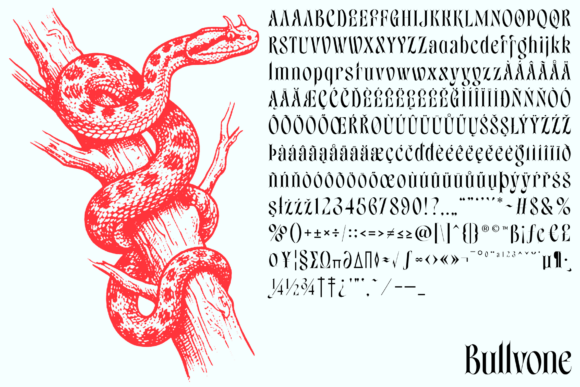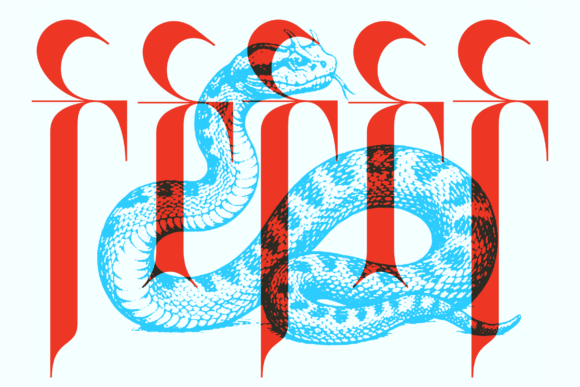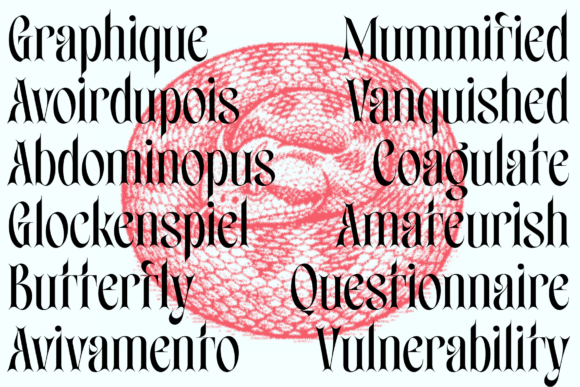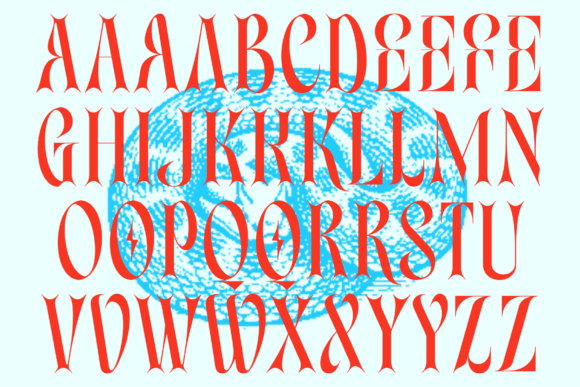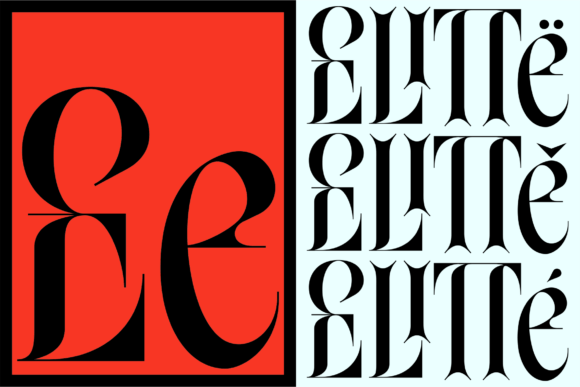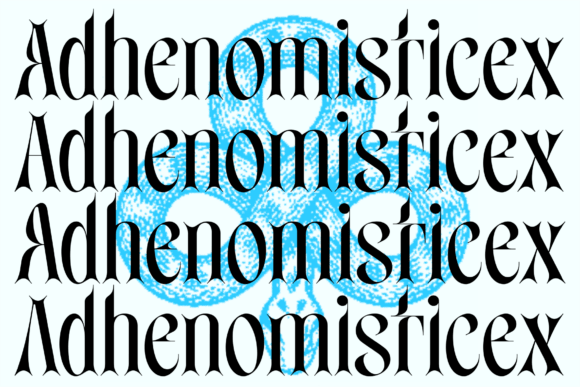
Bullvone Font: The Epitome of Edgy Elegance
In the realm of typography, few fonts manage to strike a balance between aggression and sophistication. However, Bullvone Font is an exception—a high-contrast display typeface that seamlessly fuses the raw energy of classic metal aesthetics with the precision of modern high-fashion typography. This unique blend results in a visual identity that is both intimidating and refined, making it an ideal choice for brands seeking to convey power, edge, and luxury.
The Design Philosophy Behind Bullvone
Bullvone’s design is characterized by razor-sharp, thorn-like serifs and dramatic verticality, creating a visual rhythm that commands attention. The typeface’s distinctive “stinging” terminals and flared strokes lend it a predatory grace, exuding an aura of uncompromising luxury. This careful balance of aggressive and refined elements makes Bullvone a versatile font suitable for various applications, from editorial headlines and streetwear branding to provocative poster art.
Key Features of Bullvone Font
- High-Contrast Design: Bullvone’s high-contrast design ensures that it stands out in any layout, making it perfect for large-scale applications where impact is crucial.
- Razor-Sharp Serifs: The thorn-like serifs add an edgy feel to the font, giving it a unique character that sets it apart from more traditional typefaces.
- Dramatic Verticality: The vertical strokes in Bullvone contribute to its dramatic appearance, creating a sense of power and elegance.
- “Stinging” Terminals: The unique terminals of Bullvone’s characters add to its predatory grace, making it a font that exudes confidence and luxury.
Applications of Bullvone Font
Bullvone excels in large-scale applications where its unique characteristics can be fully appreciated. Some ideal uses for Bullvone include:
- Editorial Headlines: Add a touch of edginess to your magazine or newspaper headlines with Bullvone’s dramatic and attention-grabbing design.
- Streetwear Branding: Bullvone’s blend of aggression and luxury makes it a perfect fit for streetwear brands looking to establish a bold and daring identity.
- Poster Art: Create provocative and eye-catching posters with Bullvone’s unique character, perfect for advertising campaigns or artistic projects.
Pairing Bullvone with Other Design Elements
Bullvone’s distinct silhouette pairs beautifully with gritty, stippled illustrations, reminiscent of the horned serpent often associated with the font. This combination brings a dark, avant-garde energy to any project, making it ideal for designers looking to create a bold and daring visual identity.
Adding a Touch of Dangerous Elegance to Your Design
Whether you’re looking to define a bold new identity or add a touch of sophistication to your layout, Bullvone provides the sharp architecture needed to elevate your design. Its versatility and unique character make it an excellent choice for designers and crafters seeking to push the boundaries of typography and create something truly memorable.
Bullvone Font is a game-changer in the world of typography, offering a bold and daring alternative to traditional typefaces. Its masterful blend of aggression and sophistication makes it an ideal choice for brands and designers seeking to create a lasting impression. With its wide range of applications and versatility in pairing with other design elements, Bullvone is sure to become a go-to font for those looking to add a touch of edgy elegance to their designs.